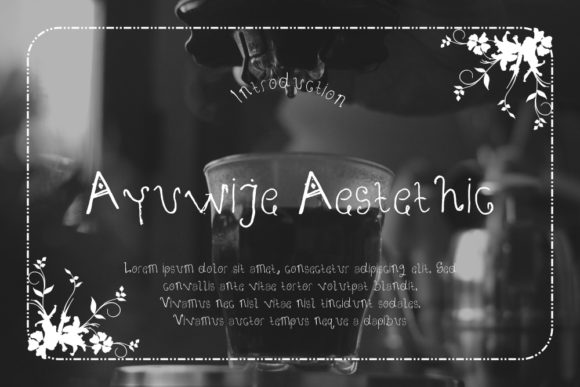
Dive into the realm of captivating typography with Ayuwije Aestethic Font, a display font destined to make a bold statement in your creative endeavors. Crafted with the finesse of a brush pen, this font exudes a charming blend of casual flair and sophisticated elegance. Its clean lines and playful quirks make it an ideal choice for crafting logos, branding, social media content, and any DIY project yearning for a touch of uniqueness.
Ayuwije Aestethic Font is your passport to a world of endless creative possibilities. Unleash your imagination and let the ink flow as you design logos that radiate personality and leave a lasting impression. Create branding that captivates and resonates, leaving your audience enamored with your attention to detail and impeccable taste. Elevate your social media presence with eye-catching posts and stories that demand attention and amplify your message. And for those with a passion for handmade crafts, Ayuwije Aestethic Font is your secret weapon for adding a personal touch to your creations.
Step into the spotlight with Ayuwije Aestethic Font, the ultimate tool for making your words dance off the page. Its bold and distinctive characters are tailor-made for crafting mesmerizing headlines that demand attention and leave an unforgettable impact. Create subheadings that intrigue and paragraphs that captivate, guiding your readers on an immersive journey through your content. With Ayuwije Aestethic Font, your words will command attention and leave a lasting impression.
Immerse yourself in the artistry of Ayuwije Aestethic Font and let your creativity soar. Its versatile nature lends itself effortlessly to a myriad of applications, from book covers that whisper tales of adventure to website designs that exude professionalism and sophistication. Craft invitations that evoke excitement and anticipation, and design posters that capture the essence of your events, leaving attendees eagerly awaiting the spectacle.
Embrace the allure of Ayuwije Aestethic Font and unlock the gateway to a world of visual wonders. Its captivating charm will transform your creative projects into masterpieces, leaving your audience spellbound and yearning for more. Whether you're a seasoned designer or just starting your journey into the world of typography, Ayuwije Aestethic Font is your trusted companion, guiding you towards greatness with every stroke of your pen.